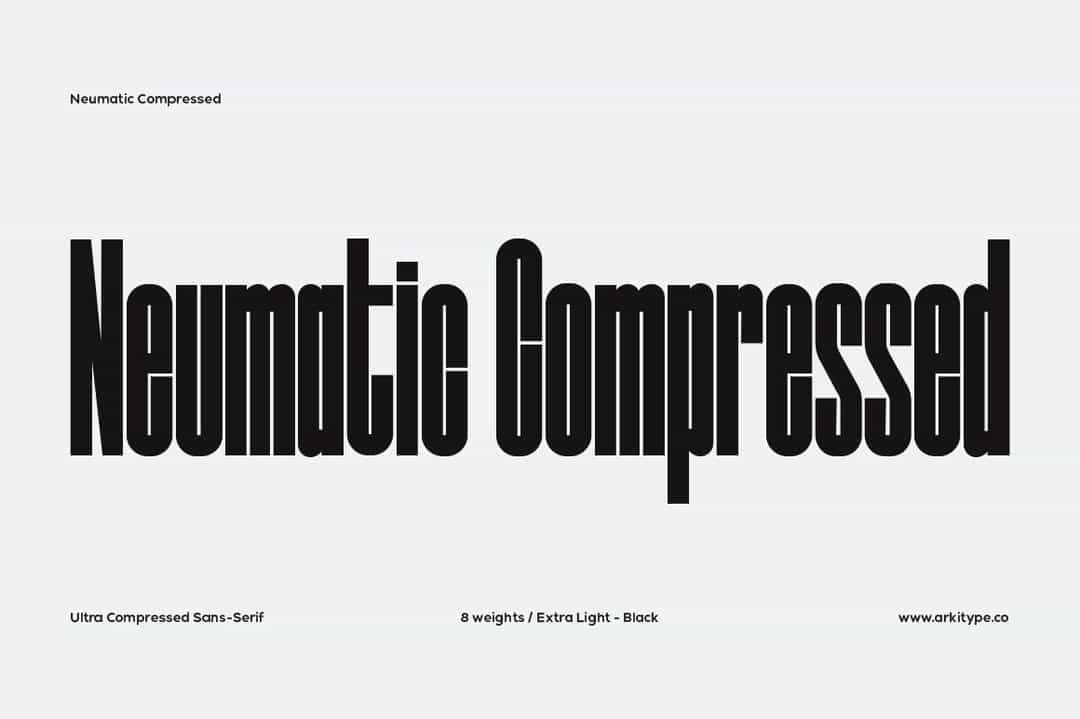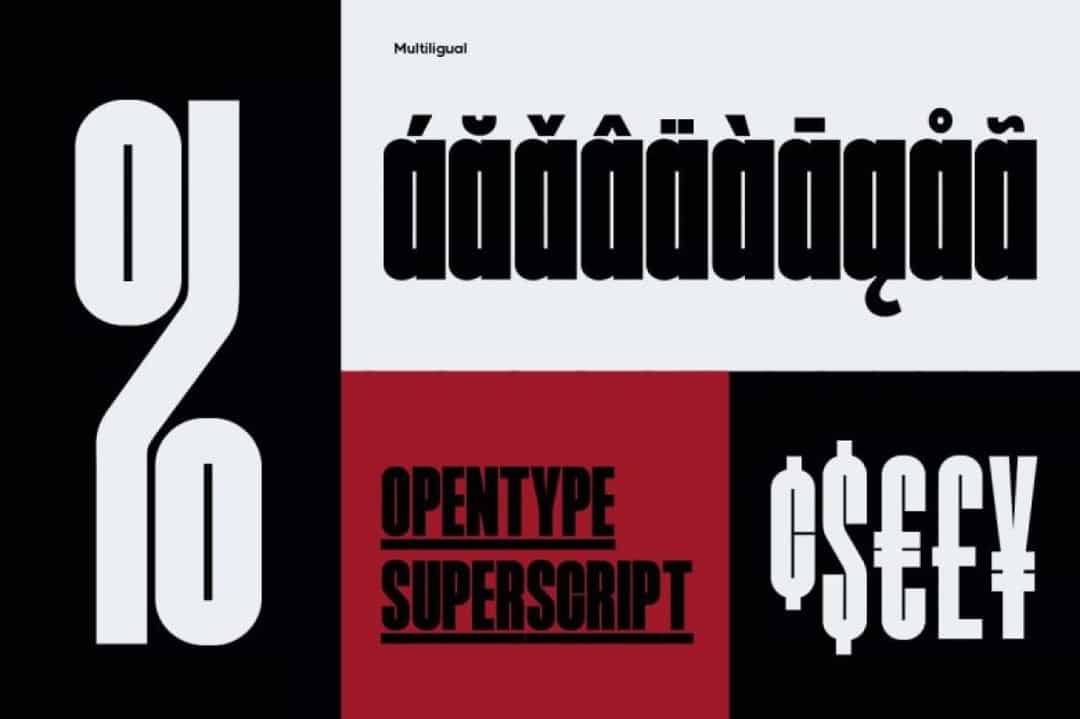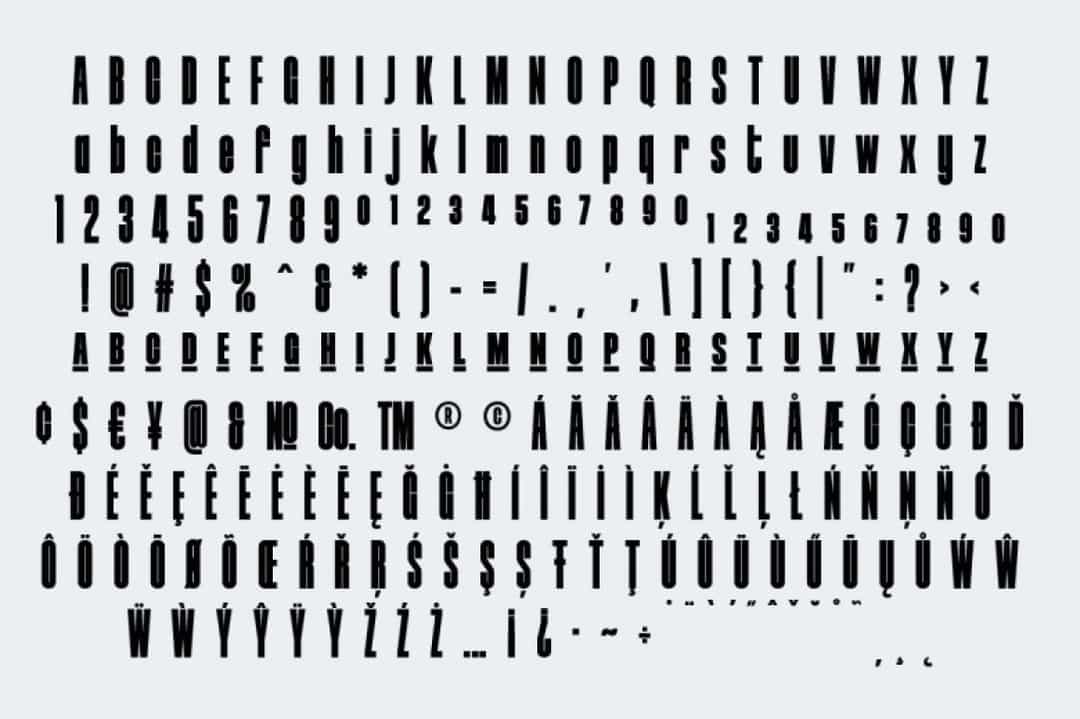
Neumatic Compressed is an ultra-compact sans serif font family with tight and precise kerning that makes it suitable for posters, headlines, display copy or headline copy for magazines. Available in 8 weights from Light to Black which makes this font versatile enough for many uses.